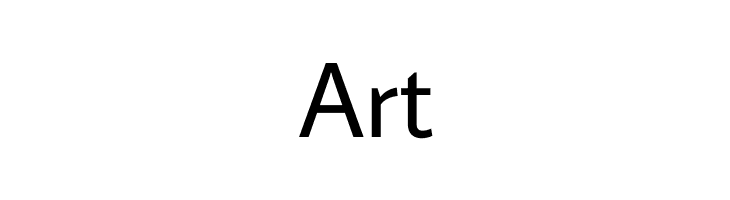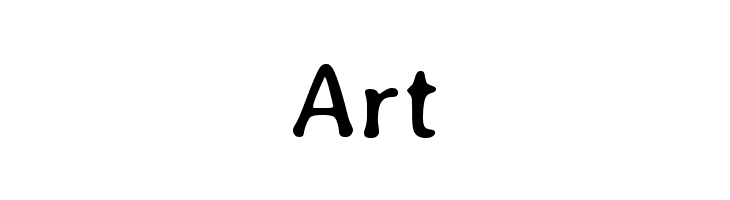
A bold, modern sans-serif font with clean lines and uniform stroke width.
A classic serif font with elegant, balanced characters and distinct serifs.
A clean and modern sans-serif font with consistent stroke width and balanced spacing.
A modern, clean sans-serif font with balanced spacing and consistent stroke width.
A decorative, pixelated font with abstract, symbol-like characters.
A clean, modern sans-serif font with geometric letterforms.
A playful, hand-drawn style with rounded, irregular strokes.
A playful, bold font with rounded edges and a hand-drawn feel.